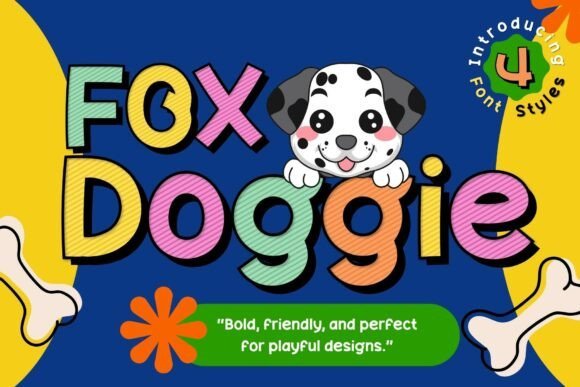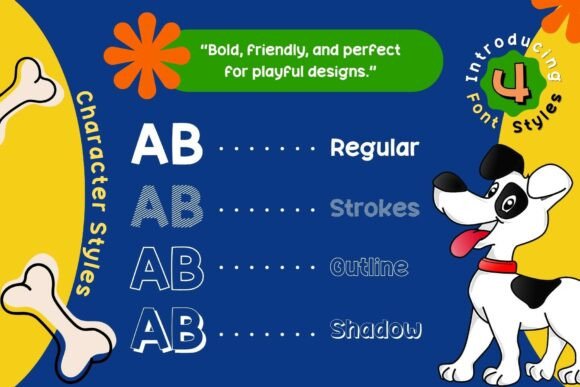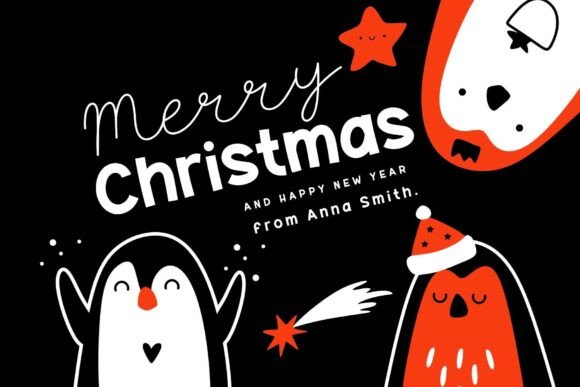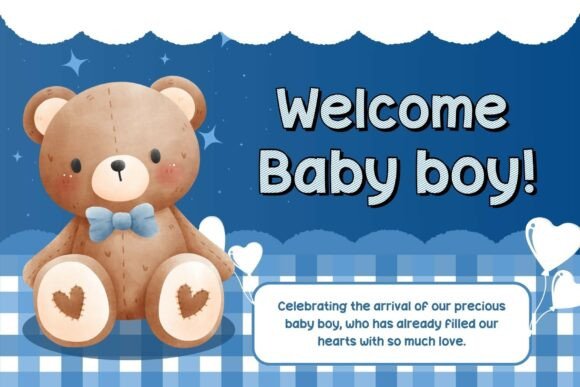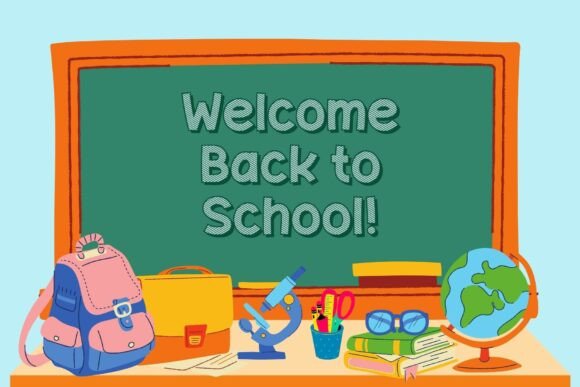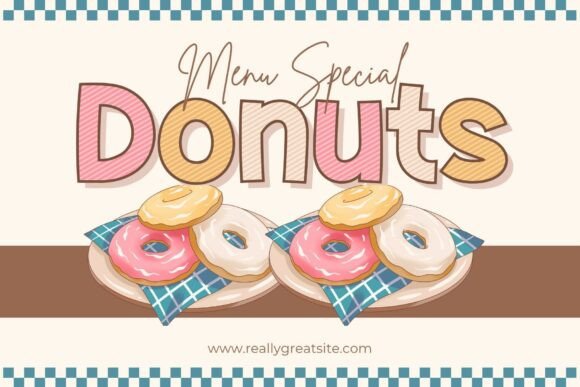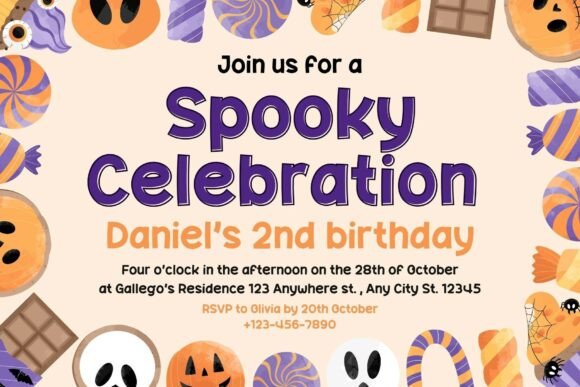
The Perfect Blend of Playfulness and Personality: Fox Doggie Font
Who hasn’t felt that rush of excitement when brainstorming a new project, surrounded by colorful pens, sticky notes, and a blank canvas? It’s the moment when creativity flows freely, and ideas start to take shape. For designers, this moment is all about finding the right tools to bring their vision to life. And that’s where the Fox Doggie Font comes in – a delightful, bold, and playful font family that adds a touch of whimsy to any design.
With its 4 styles – Regular, Strokes, Outline, and Shadow – Fox Doggie Font is the perfect companion for children’s books, stickers, games, posters, or playful packaging. Its charm, texture, and bubbly vibe make it a valuable asset for designers looking to add a unique personality to their work. Whether you’re a seasoned pro or a beginner, Fox Doggie Font is sure to bring a smile to your face and inspire your next creative project.
Fox Doggie Font Key Features
- Font Family: Fox Doggie Font is a unique, hand-drawn font family with multiple styles.
- Character Set: The font family includes a wide range of characters, including uppercase and lowercase letters, numbers, and punctuation marks.
- Size and Resolution: Fox Doggie Font is designed to be scalable, making it suitable for use in various sizes and resolutions, from small text to large headings.
- Unique Characteristics: The font features a playful, hand-drawn style with irregular shapes and lines, giving it a distinctive and whimsical feel.
Designer Review: Fox Doggie Font
As a designer, I was excited to dive into the world of Fox Doggie Font. At first glance, I loved the quirky and playful vibe it brings to any design. ✨ The unique combination of a fox’s cunning and a dog’s loyalty is a clever concept that could add a fun twist to branding and marketing materials.
One of the strengths of Fox Doggie Font is its versatility. It’s suitable for use in various contexts, from children’s books to outdoor gear labels. ✨ The font’s open-source nature is also a major plus, making it accessible to designers and non-designers alike. However, its compatibility with certain operating systems and software can be a bit of a challenge.
- Quirky and playful design aesthetic
- High level of versatility
Limitsations:
- Some users may find the font’s design too unconventional
Overall, I think Fox Doggie Font is a great choice for designers looking for a unique and fun font to add some personality to their projects. While it’s not perfect, its strengths outweigh its limitations, making it a solid addition to any design toolkit.
The Fox Doggie Font is perfect for adding a playful and whimsical touch to your designs. Use it for:
– Children’s party invitations and decorations
– Pet-related businesses and products
– Whimsical illustrations and graphics
Tips for Getting the Most Out of Fox Doggie Font
To get the most out of the Fox Doggie Font, try combining it with bold colors and playful illustrations. Experiment with different font sizes and styles to add visual interest to your designs. Don’t be afraid to mix and match the font with other fonts to create a unique look.